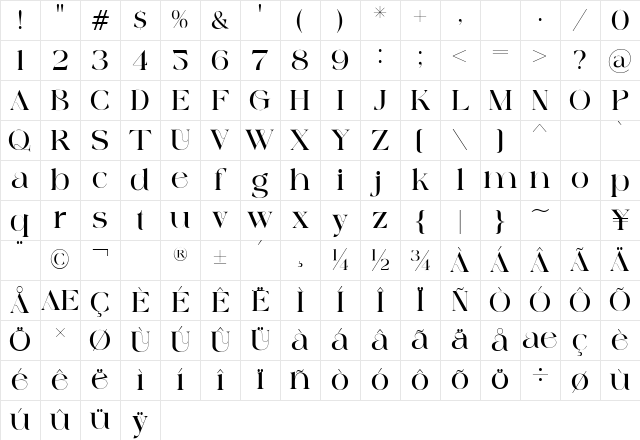
against Regular Free Font
against Regular
Foundry: 177Studio.com
Designer: 177Studio.com
Design Context for against
against is a composed and adaptable typeface that performs quietly and consistently across a wide range of design contexts.